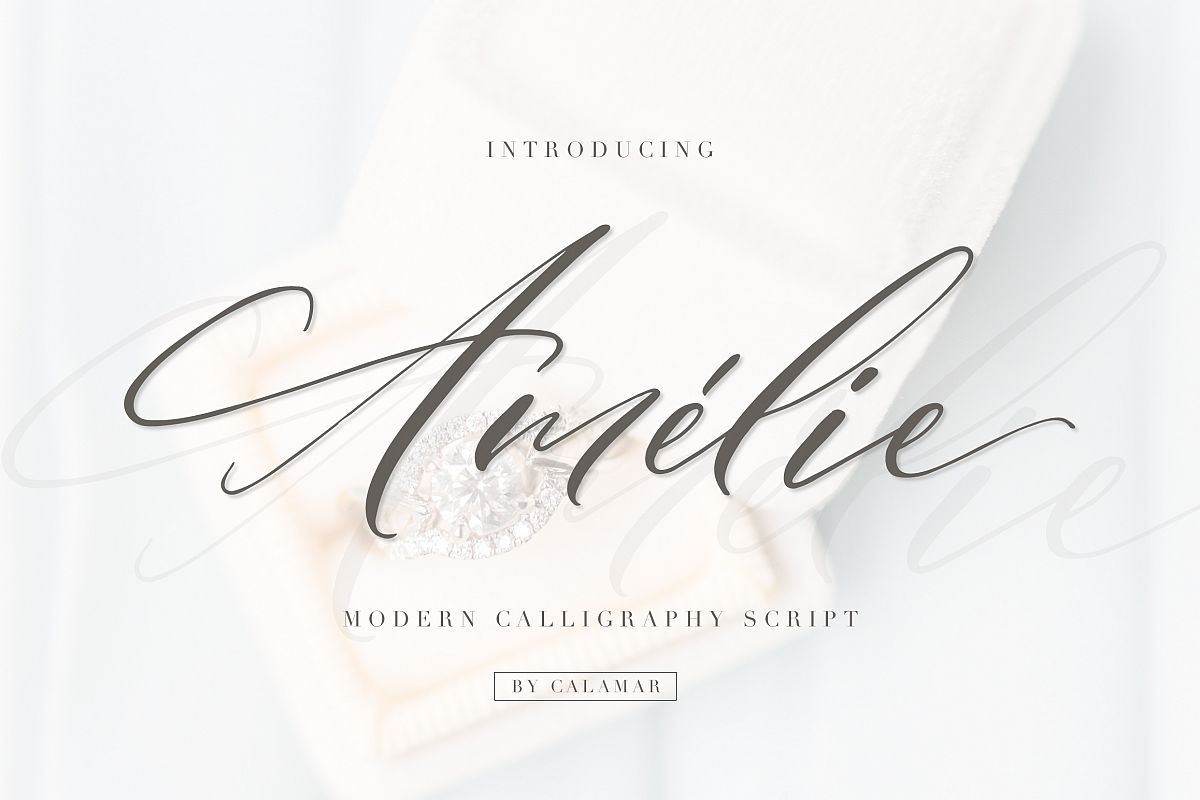
Amélie Script
Amélie Script is an elegant and romantic font that will look awesome on logos, branding materials, wedding and event stationery, social media overlays, cards and so on.
Amélie Script includes Upper and Lowercase Basic Characters, Numbers and Punctuation.
OPEN TYPE FEATURES (OTF) include:
• Stylistic alternates both for uppercase and lowercase glyphs;
• Stylistic alternates for final lowercase glyphs (longer tails);
• Standart and Discretionary Ligatures;
• Contextual alternates (final glyphs).